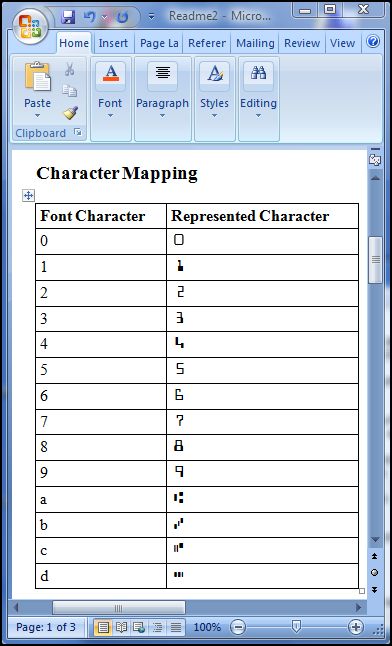
ConnectCode MICR E13B Fonts Description
ConnectCode MICR E13B is a Magnetic Ink Character Recognition font based on the E13B industry standard. This is a widely accepted standard in the US, Canada, Australia and many other countries. This character set comprises of ten numbers (0..9) and four special symbols(Amount, Domestic, BSB and Dash). ConnectCode MICR E13B is a professional and comprehensive package that contains over 60 MICR E13B fonts. This includes the following: TrueType fonts - For use in Microsoft Windows environment. Calibration fonts - For overcoming printer misalignment or toner problems. These fonts can be found in the CalibrationFonts subdirectory. PostScript fonts - For supporting high-end image setters. These fonts can be found in the PostScript subdirectory. OpenType fonts - For universal support across different machines, platforms and locales. These fonts can be found in the OpenType subdirectory.